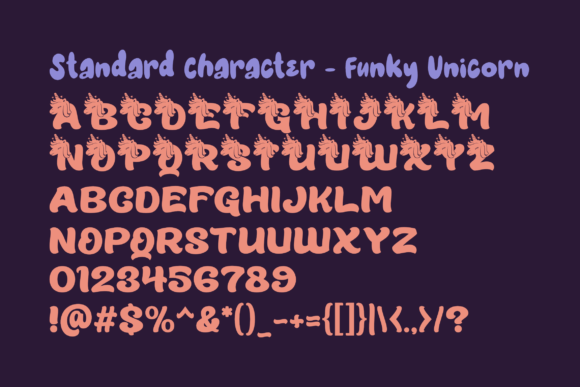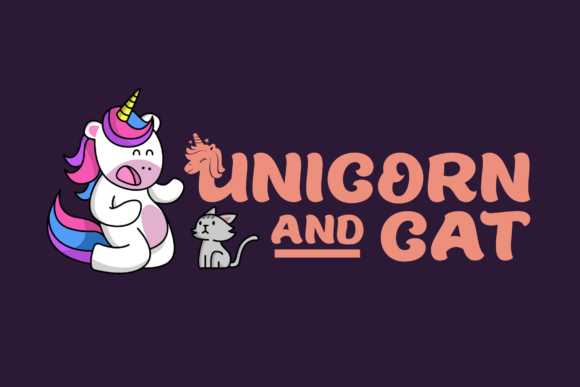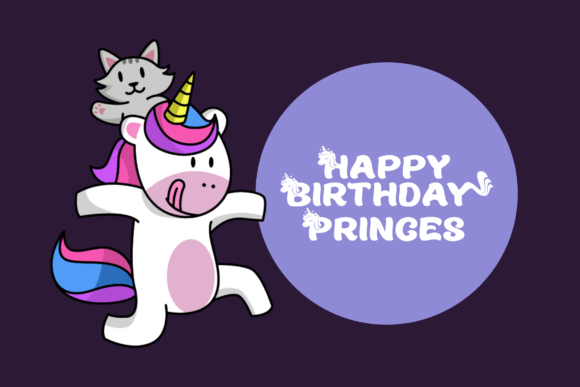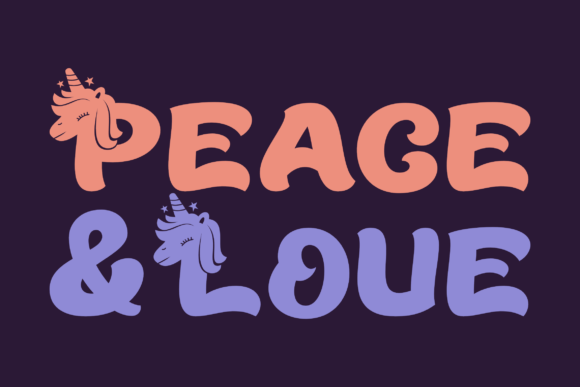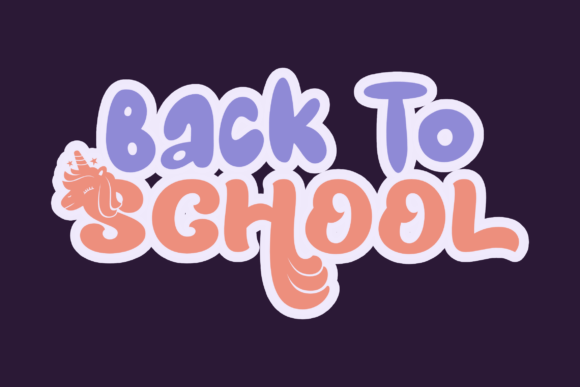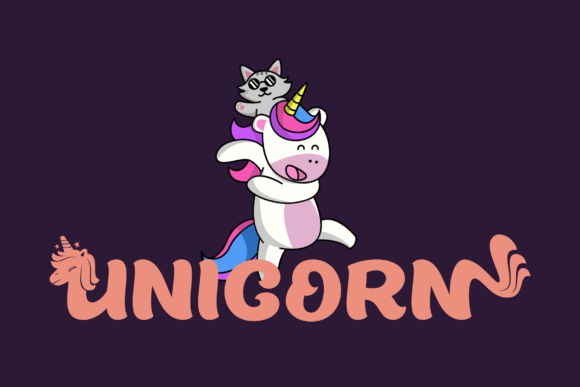
Funky Unicorn Font: Add a Touch of Whimsy to Your Designs
Are you looking for a font that can add a dash of magic to your designs? Look no further than the Funky Unicorn font! This display font is perfect for designers and crafters who want to create fun and playful designs that are sure to delight. In this article, we’ll take a closer look at the Funky Unicorn font, its features, and how you can use it to create amazing designs.
What is Funky Unicorn Font?
Funky Unicorn is a display font with a unicorn theme that’s sure to capture the imagination of your audience. The font is designed to be bold, playful, and eye-catching, making it perfect for designs that need to stand out. Whether you’re creating a logo, poster, or social media graphic, Funky Unicorn is sure to add a touch of whimsy and fun to your design.
Key Features of Funky Unicorn Font
So, what makes Funky Unicorn font so special? Here are some of its key features:
- Unicorn theme: The font has a unique unicorn theme that’s sure to delight kids and adults alike.
- Many alternates: Funky Unicorn font comes with many alternate characters, which make it easy to create unique and interesting designs.
- Multipurpose: Funky Unicorn font can be used for a variety of design projects, including children’s designs, logos, posters, and more.
How to Use Funky Unicorn Font in Your Designs
Now that we’ve covered the features of Funky Unicorn font, let’s talk about how you can use it in your designs. Here are some ideas to get you started:
- Children’s designs: Funky Unicorn font is perfect for designing materials for kids, such as coloring books, activity sheets, and posters.
- T-shirts and apparel: You can use Funky Unicorn font to create fun and playful designs for t-shirts, hats, tote bags, and more.
- Party decorations: Create custom party decorations, such as banners, garlands, and invitations, using Funky Unicorn font.
- Social media graphics: Use Funky Unicorn font to create eye-catching social media graphics, such as Facebook posts, Instagram stories, and Twitter headers.
Tips for Getting the Most Out of Funky Unicorn Font
Here are some tips for getting the most out of Funky Unicorn font:
- Experiment with different colors: Funky Unicorn font looks great in bright, bold colors, so don’t be afraid to experiment with different color schemes.
- Mix and match: Try mixing and matching Funky Unicorn font with other fonts to create interesting and unique designs.
- Use the alternates: Make sure to use the alternate characters to add some variety to your designs.
- Have fun: Most importantly, have fun with Funky Unicorn font! It’s a playful font that’s meant to bring a smile to people’s faces.
| Font Name | Funky Unicorn Font |
| Author | Lettersweet |
In conclusion, Funky Unicorn font is a fun and playful display font that’s perfect for designers and crafters who want to add a touch of whimsy to their designs. With its unique unicorn theme, many alternates, and PUA encoding, Funky Unicorn font is a versatile font that can be used for a variety of design projects. Whether you’re creating children’s designs, t-shirts, or social media graphics, Funky Unicorn font is sure to delight your audience. So why not give it a try and see what kind of magical designs you can create?